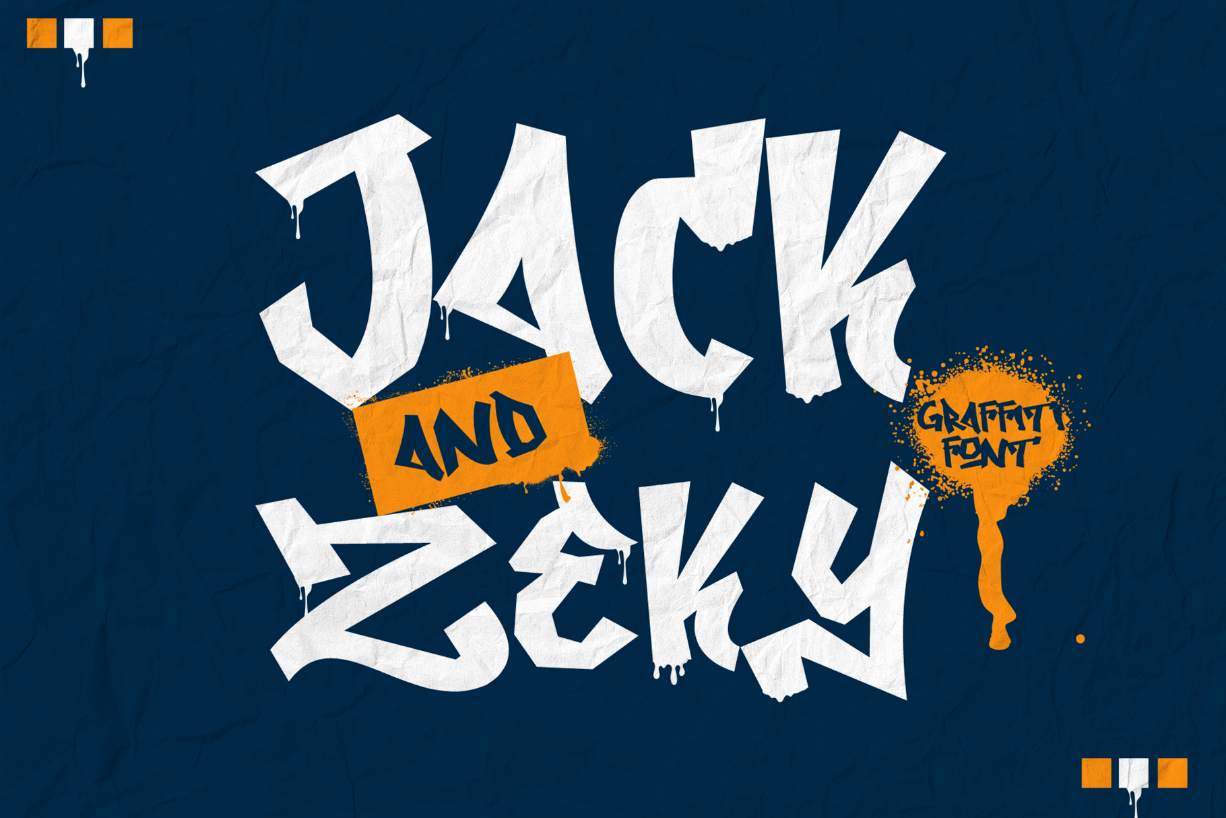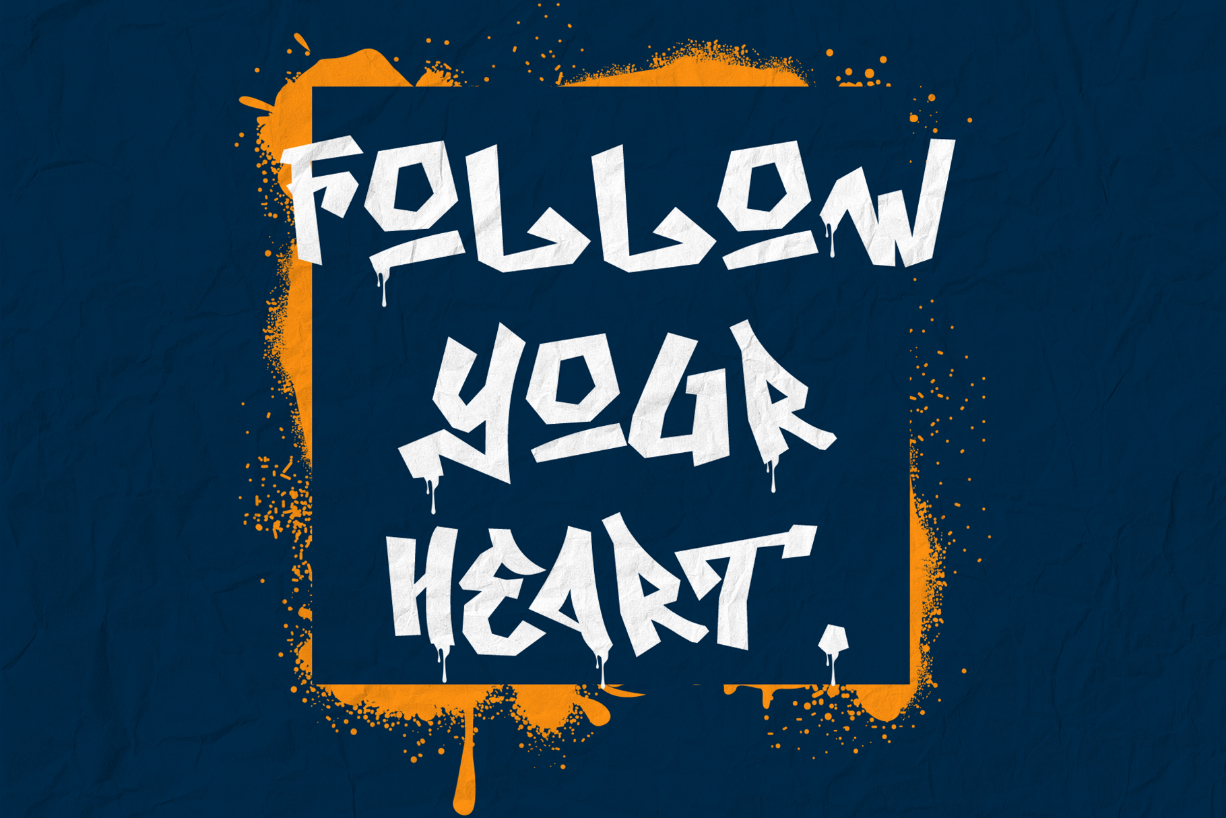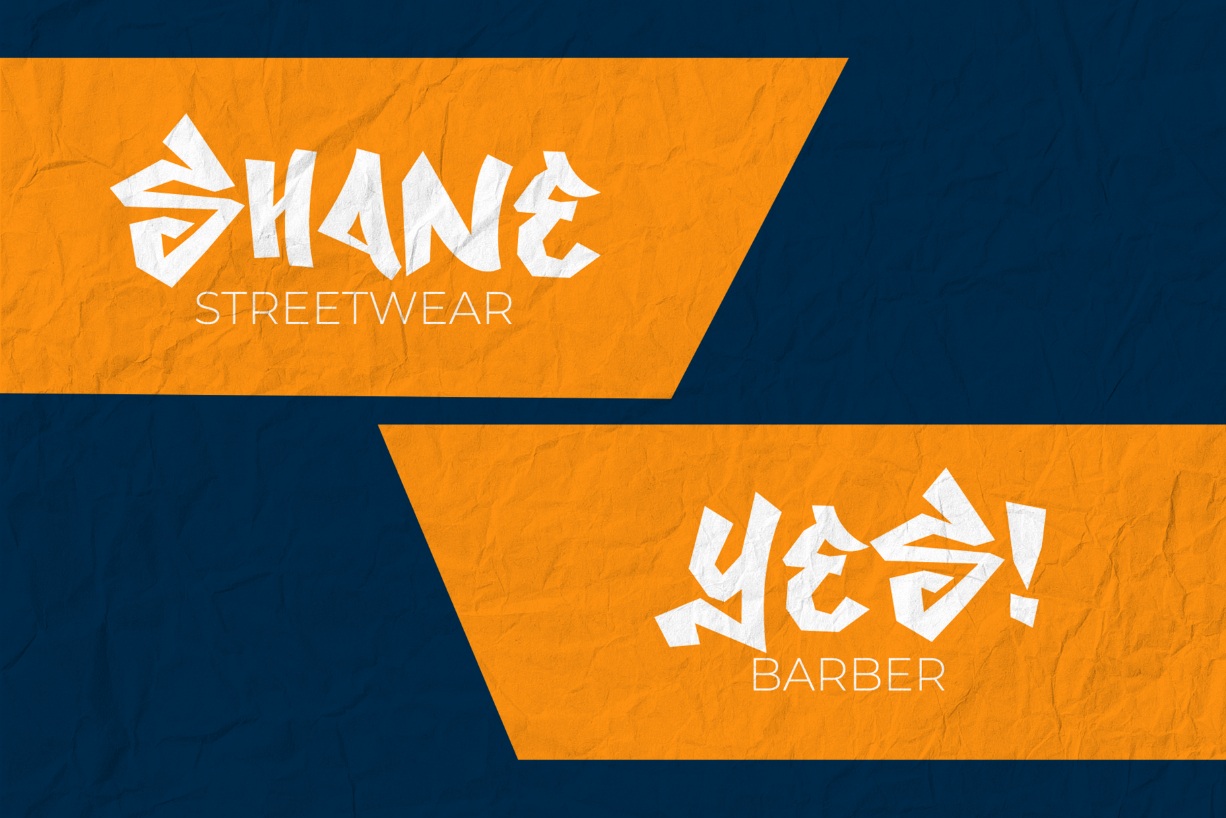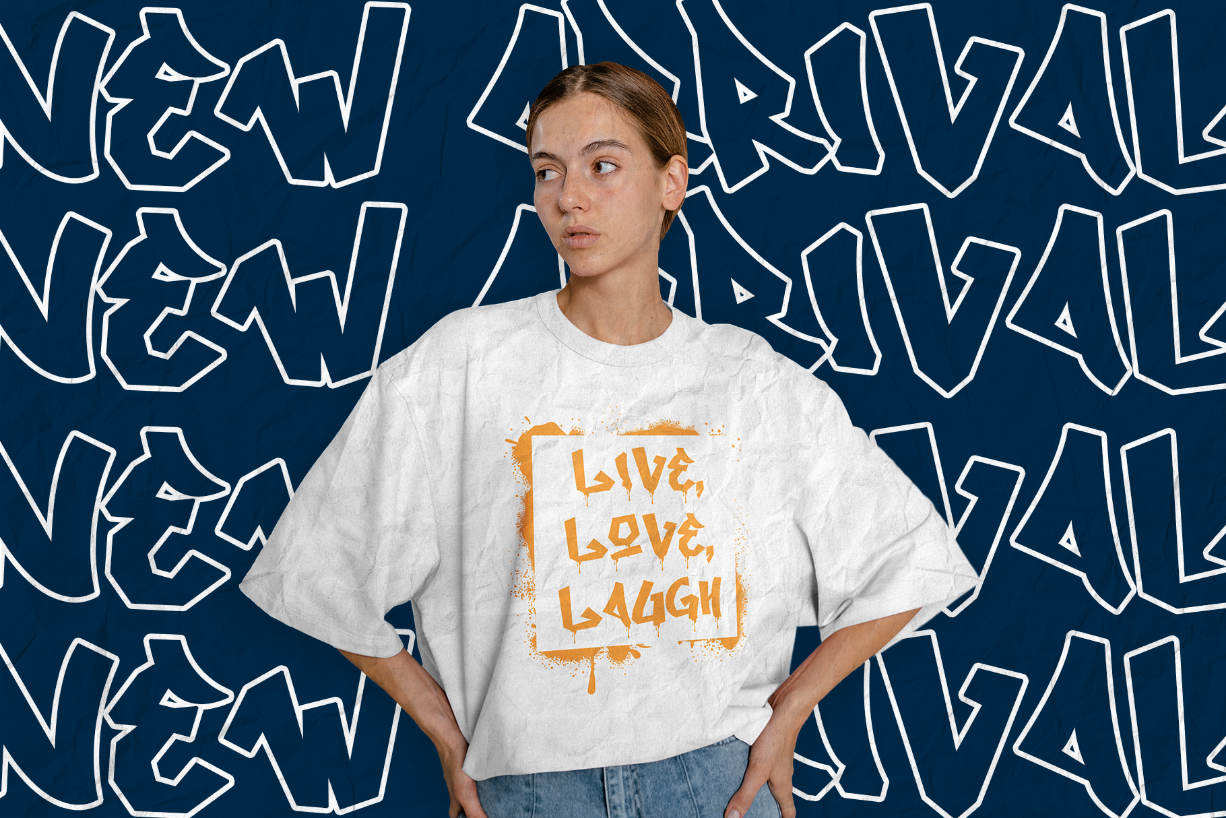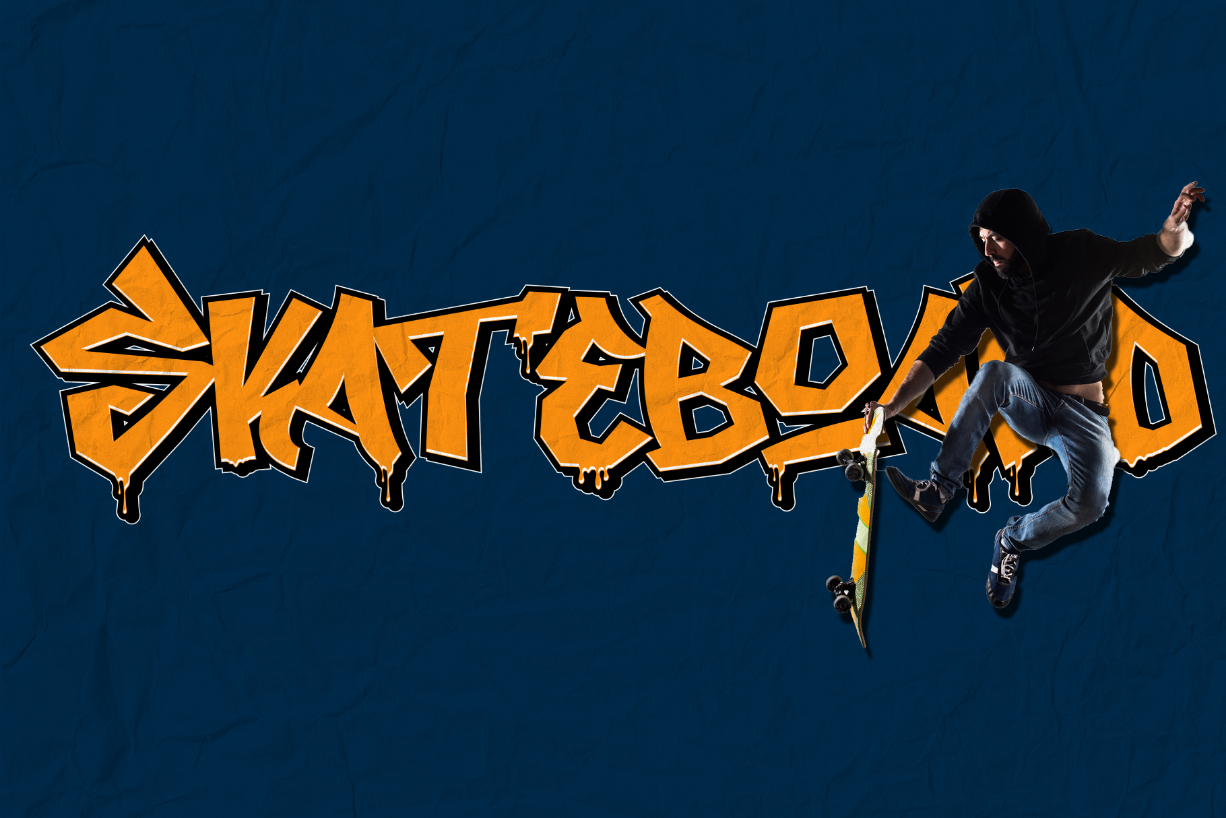
About Jack and Zeky Font
Step into the urban jungle with “Jack and Zeky”, a revolutionary graffiti-inspired font defined by its sharp, striking corners. This font embodies a modern edge, a zealous spirit that dares to be bold, unapologetically contemporary, and ideal for those breathing life into audacious projects. “Jack and Zeky” radiates rawness and a pulsating urban energy, making it a superior fit for graffiti-themed designs, unflinching street art, captivating posters, or any project screaming for a bold typography punch. The acute corners not only heighten its distinct character, but they also amplify visibility, allowing your text to audaciously stand out and make a potent visual statement. Embrace the modernity with “Jack and Zeky”.